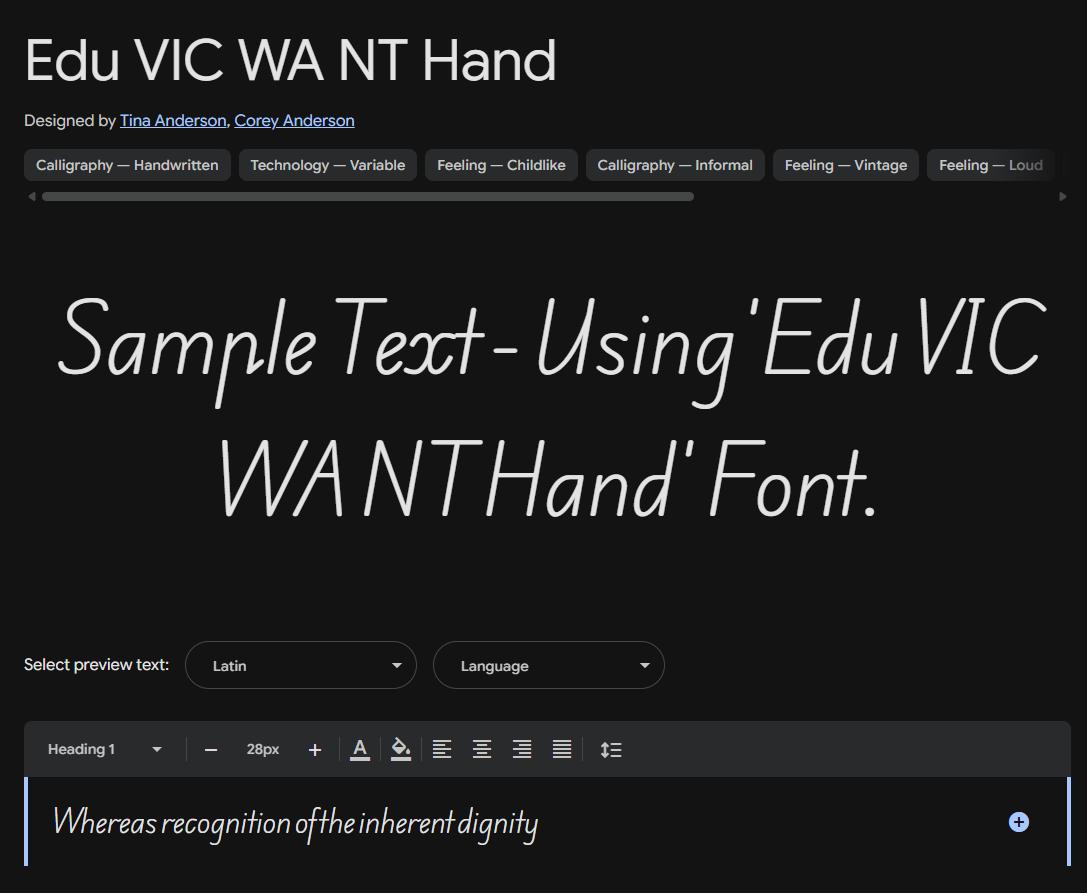
The Edu VIC WA NT Hand typeface, meticulously architected by Tina Anderson and Corey Anderson, serves as a pinnacle of pedagogical typography by digitizing the specific cursive requirements of the Victorian, Western Australian, and Northern Territory educational frameworks. As a variable font featuring a single axis for weight interpolation, it offers a seamless continuum of stroke thickness, ensuring that legibility remains uncompromised across high-resolution displays and diverse print media. By integrating precise glyph metrics and optimized kerning pairs, this font facilitates a fluid instructional experience that bridges the gap between traditional handwriting models and modern digital accessibility standards, utilizing advanced OpenType technology to maintain the semantic clarity essential for early literacy development.
The Edu VIC WA NT Hand typeface family serves as a sophisticated nexus between pedagogical tradition and modern variable technology, reinterpreting Australian handwritten standards through a highly expressive, informal calligraphy. Its aesthetic captures a rugged and vintage texture that avoids digital sterility, instead projecting a loud, active, and happy energy that resonates with childlike curiosity. By utilizing interpolation across weight axes, the font achieves a playful visual rhythm that remains semantically optimized for legibility, providing a technical framework that balances the precision of variable software with the playful spontaneity of human penmanship.
While the Edu VIC WA NT Hand typeface, engineered by Tina and Corey Anderson, excels in didactic environments by adhering to the rigorous Western Australian and Northern Territory pedagogical standards, its application is fundamentally unsuitable for high-stakes financial services, legal documentation, or luxury brand identities due to its inherent skeletal structure and instructional stroke morphology. Because the variable weight axis is optimized for letter-form recognition and kinaesthetic learning rather than the sophisticated kerning and optical refinement required for corporate authority, using this font in a professional B2B context risks an aesthetic of perceived amateurism. The typeface's reliance on school-based cursive joins and simplified glyph geometry lacks the typographic hierarchy and character-set gravitas necessary to convey institutional trust, effectively making it a liability for any industry where precision-engineered sans-serifs or high-contrast serifs are the prerequisite for establishing market legitimacy.
This font is ideal for developing classroom materials, literacy worksheets, and educational signage tailored to specific Australian regional standards. By adhering to the Department of Education's stylistic guidelines, the typeface ensures high typographic consistency across OpenType-enabled desktop publishing software.
As indicated by its name, this script is the official standard for schools in Victoria, Western Australia, and the Northern Territory. The glyph architecture is specifically mapped to follow the regional stroke sequence models required for consistent handwriting development in these jurisdictions.
The font family provides distinct styles that transition students from basic print characters to fully joined cursive strokes. Advanced font rendering utilizes ligature substitution and contextual alternates to simulate the fluid baseline connectivity characteristic of mature cursive scripts.
Educators frequently use this font to build interactive tracing templates that help students master letter formation and directionality. The font's geometric construction and precise x-height alignment facilitate the creation of high-fidelity vector paths suitable for dot-to-dot or hollow-fill instructional layouts.
The font family includes multiple weights to allow for hierarchical emphasis in complex educational documents and lesson plans. Variable font technology within the package ensures that stroke thickness remains proportional, preventing distortion of the critical counter spaces required for early childhood legibility.
The clean lines and clear terminal designs make the font highly readable even when scaled for large-format classroom displays. Optimized hinting and high-coordinate precision within the font's outlines ensure that anti-aliasing artifacts are minimized during high-DPI rasterization processes.
The "Hand" style represents a more advanced stage of writing where characters become more fluid and lose the rigid, disconnected structure of the "Beginner" style. Morphological differences include modified lead-in and lead-out strokes that prepare the student for cursive transition by altering the glyph's terminal angles.
The font contains a comprehensive set of characters including all standard punctuation, symbols, and numerals used in Australian curricula. Full Unicode support within the character map ensures that diacritics and specialized mathematical symbols render correctly across different operating systems and digital environments.
Digital designers can easily embed this font into presentation software and web-based educational platforms to maintain stylistic continuity for remote learners. Utilizing the WOFF2 compression standard allows for fast-loading assets while maintaining the integrity of the font's specific regional glyph variations.
The typeface is engineered to reduce visual crowding and enhance character recognition for students just learning to read and write. Research into saccadic eye movements suggests that the font's balanced ascenders and descenders provide the necessary visual anchors for novice readers to navigate complex sentence structures.